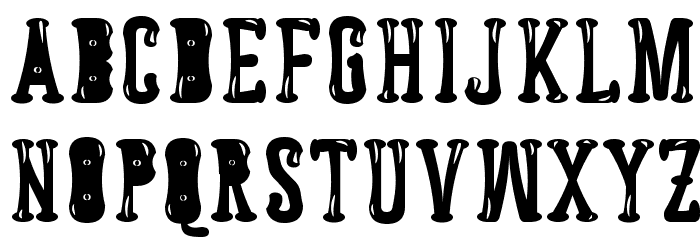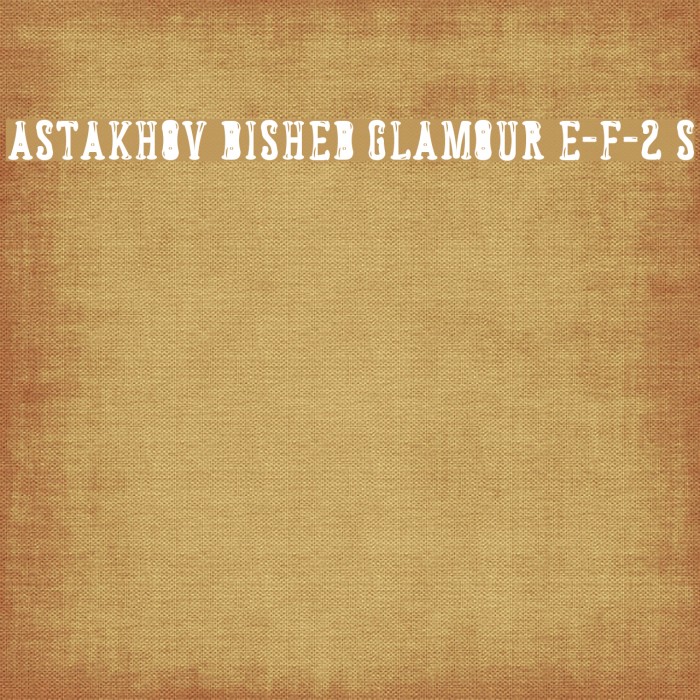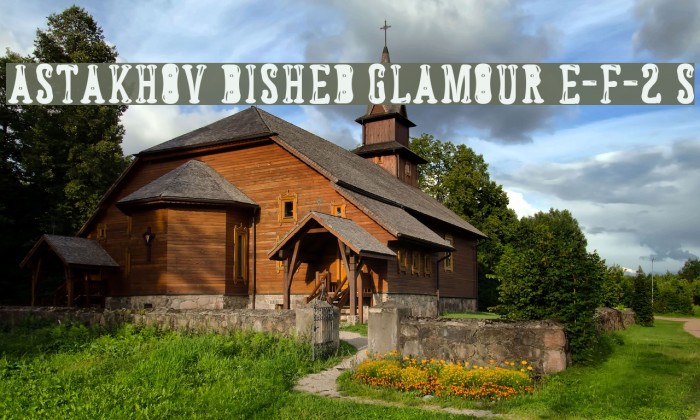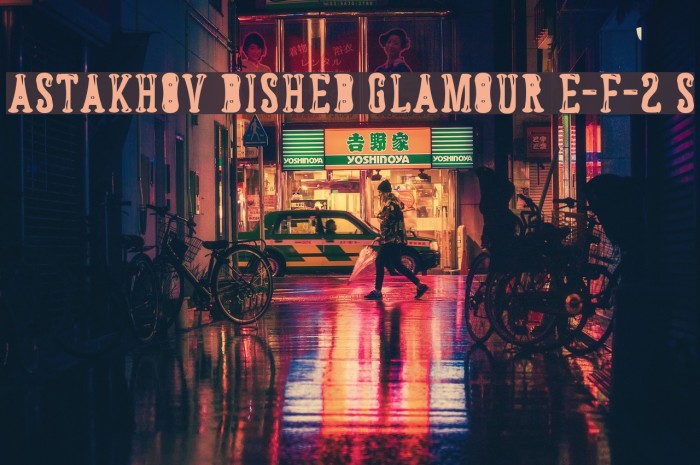
Astakhov Dished Glamour E-F-2 S Font
This font features a unique and bold design with a playful, decorative style. The characters have a whimsical appearance, with exaggerated curves and varying stroke thickness that create a sense of movement and energy. The uppercase letters are particularly striking, with their bold presence and distinctive shapes. The numbers and special characters maintain the same playful aesthetic, making the font suitable for creative and eye-catching designs. Its decorative nature makes it ideal for projects that require a touch of fun and personality.
A bold, decorative font with playful, whimsical characters.
- Proposed Projects: Ideal for posters, event invitations, children's book covers, and any project needing a playful and eye-catching typeface.